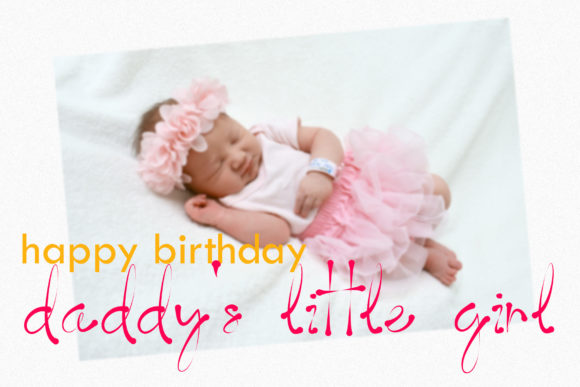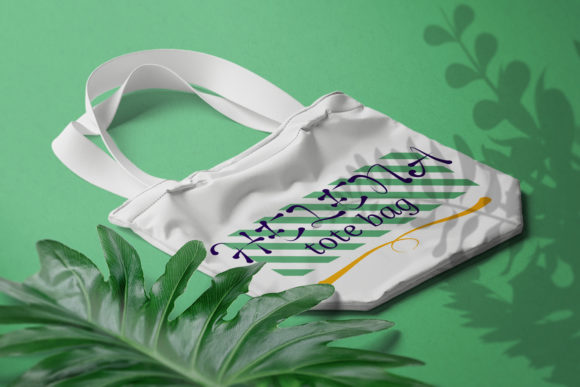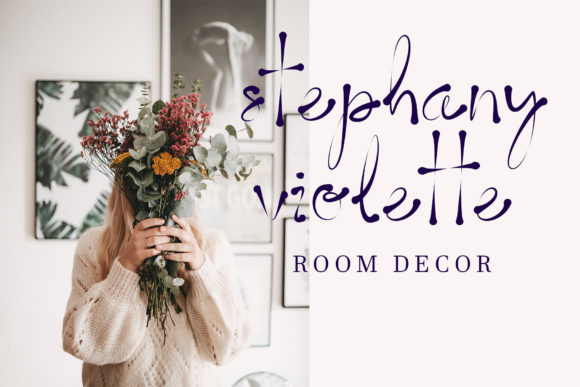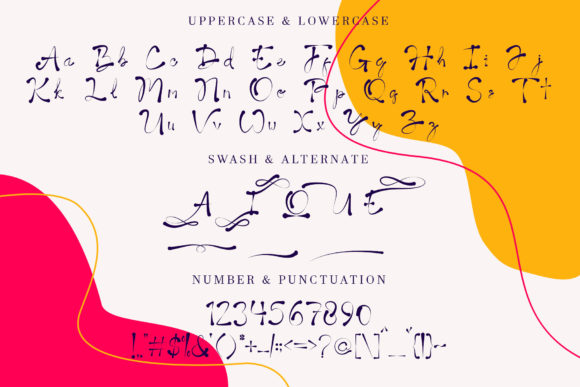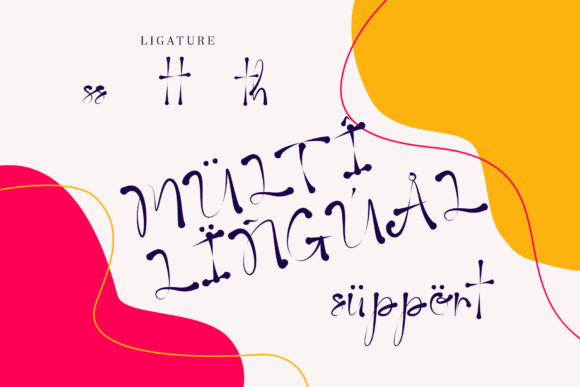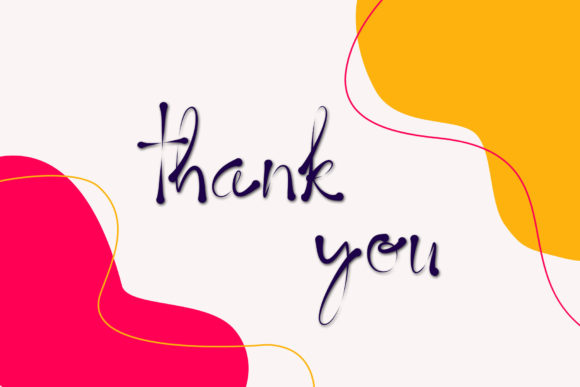
The Art of Beautiful Typography: Discover the Aladyne Font
Have you ever found yourself staring at a blank page, trying to bring your creative vision to life, only to be stuck on the perfect font? It’s a moment we’ve all been in – the moment when the right typography can make or break our design. For those who are struggling to find the perfect handwritten font, we’re excited to introduce you to the Aladyne Font – a beautiful and delicate handwritten font that’s perfect for any creative project.
Whether you’re looking to add a touch of elegance to your Instagram posts or create stunning calligraphy scripts for your DIY projects, the Aladyne Font is the perfect tool for the job. With its unique and sophisticated design, this font is sure to elevate any design and make it a true work of art. For designers, the Aladyne Font is a valuable asset that can help bring their creative ideas to life and take their designs to the next level.
- Unique Characteristics: Aladyne features a unique blend of elegance and sophistication, with subtle flair and ornate details, making it suitable for high-end branding, advertising, and editorial design
Aladyne Font Review
Overall, I found the Aladyne Font to be a unique and interesting addition to any design project. ✨ Its elegant and refined look makes it perfect for high-end branding and marketing materials.
Here are some of the things that I think work well with the Aladyne Font:
- ✨ Beautifully crafted letterforms that evoke a sense of luxury and sophistication.
- ✨ Excellent legibility, even at smaller font sizes.
- ✨ Wide range of font weights and styles to choose from.
- ⚠️ May not be suitable for more casual or informal design projects.
- ⚠️ Some users may find the font too ornate or overwhelming.
- ⚠️ Limited support for certain languages or character sets.
Overall, I think the Aladyne Font is a solid choice for designers looking to add a touch of elegance to their projects. While it may not be perfect for every project, it’s definitely worth considering for those looking to create a high-end or sophisticated aesthetic.
To get the most out of Aladyne Font, consider the following tips:
– Use Aladyne Font for titles, headings, and emphasis.
– Pair Aladyne Font with a sans-serif font for body text.
– Experiment with different font sizes and styles to add visual interest.
Aladyne Font is ideal for:
– Creative projects, such as brochures and posters.
– Branding materials, such as logos and business cards.
– Digital products, such as e-books and presentations.
Alternatives to Aladyne Font
Playfair Display is a luxurious and elegant serif font ideal for high-end branding and packaging designs. It features intricate details and ornate flourishes, making it perfect for creating a sophisticated and refined look.
Compared to Aladyne Font, Playfair Display has a more dramatic and elaborate feel, while Aladyne Font is more understated and modern. Use Playfair Display for designs that require a touch of luxury and sophistication.
Montserrat is a modern sans-serif font designed for urban environments. It features clean lines, geometric shapes, and a minimalist aesthetic, making it perfect for digital products, logos, and branding.
Compared to Aladyne Font, Montserrat is more geometric and minimalist, while Aladyne Font is more rounded and elegant. Use Montserrat for designs that require a modern and urban feel.